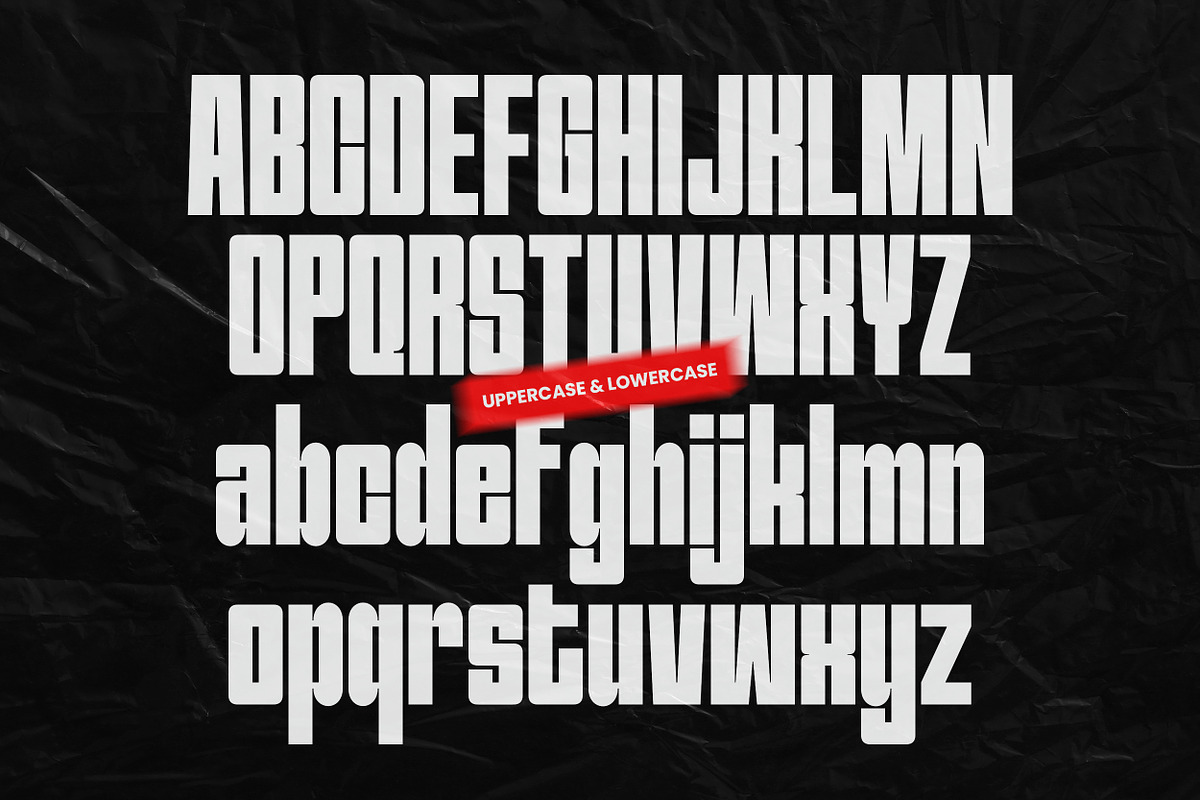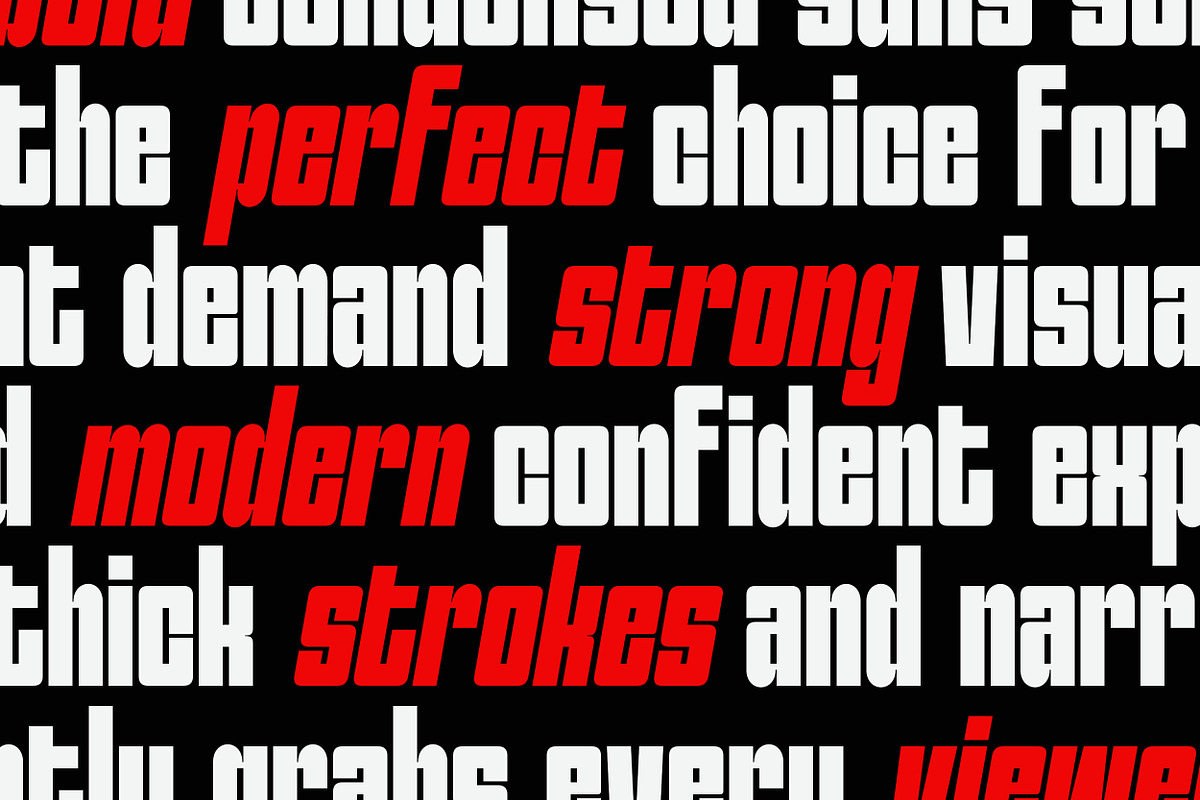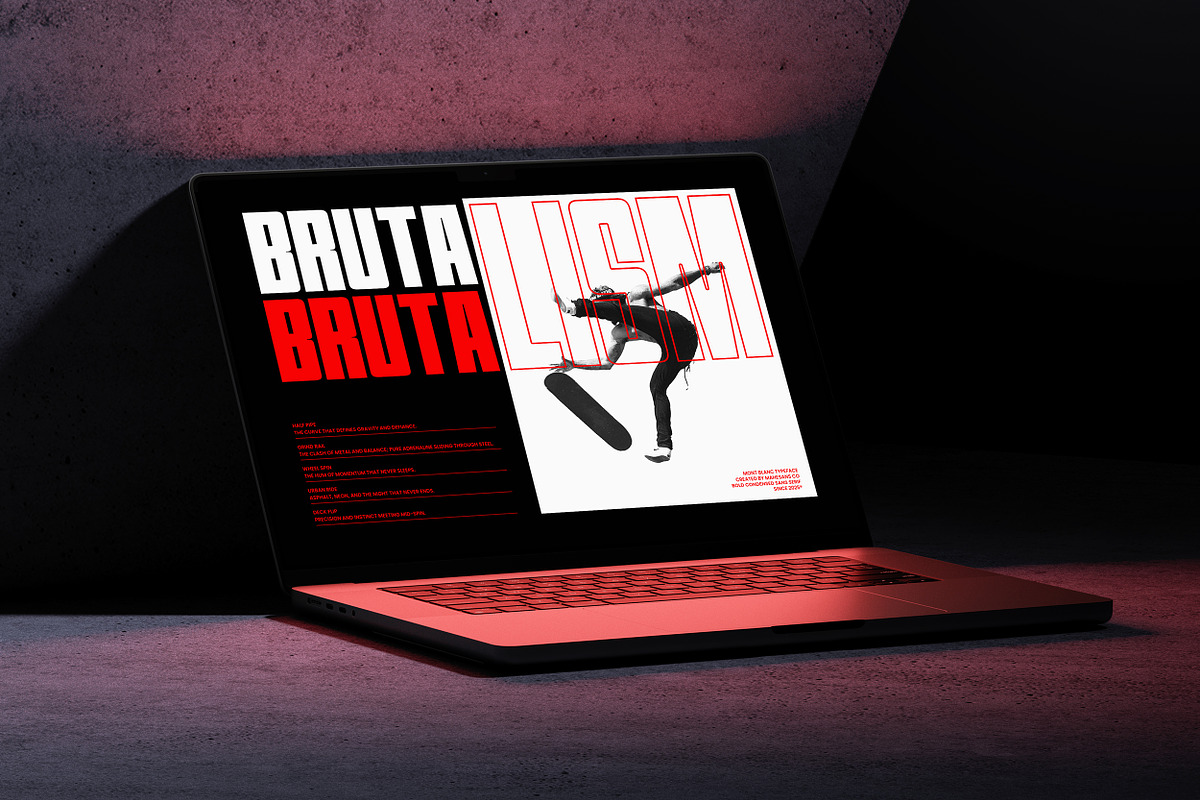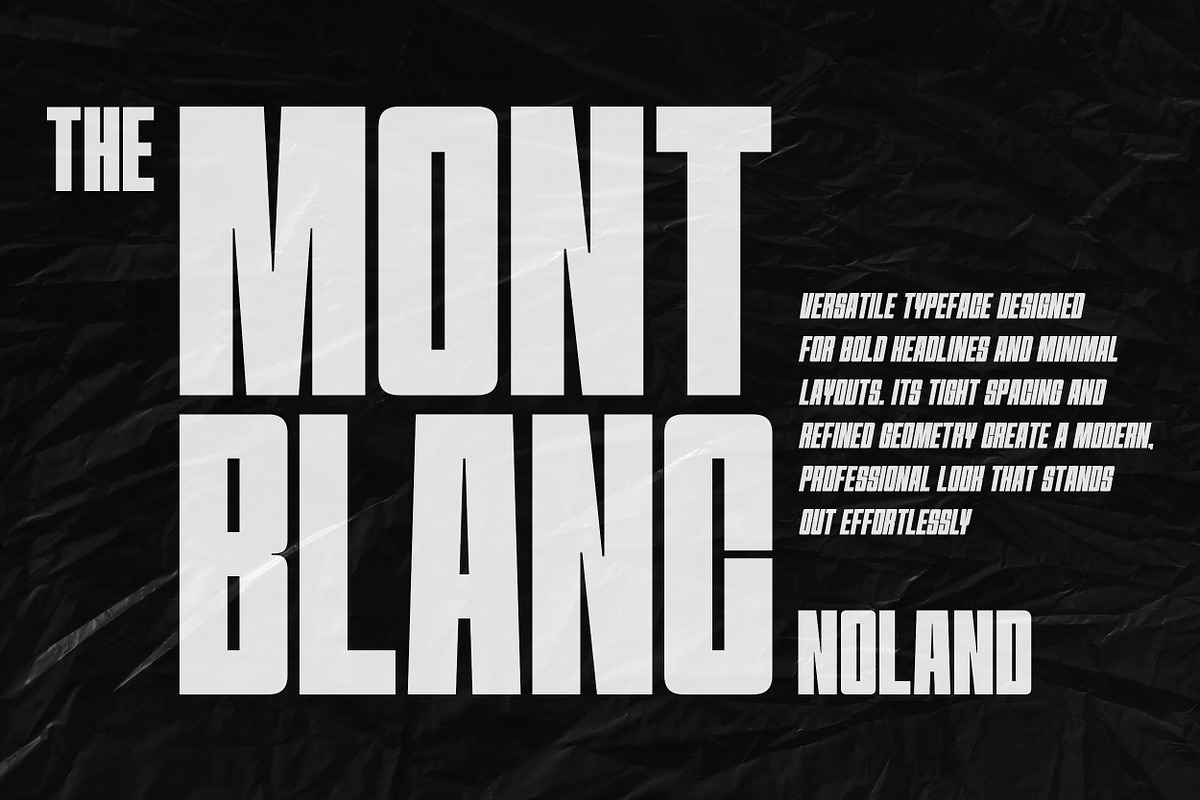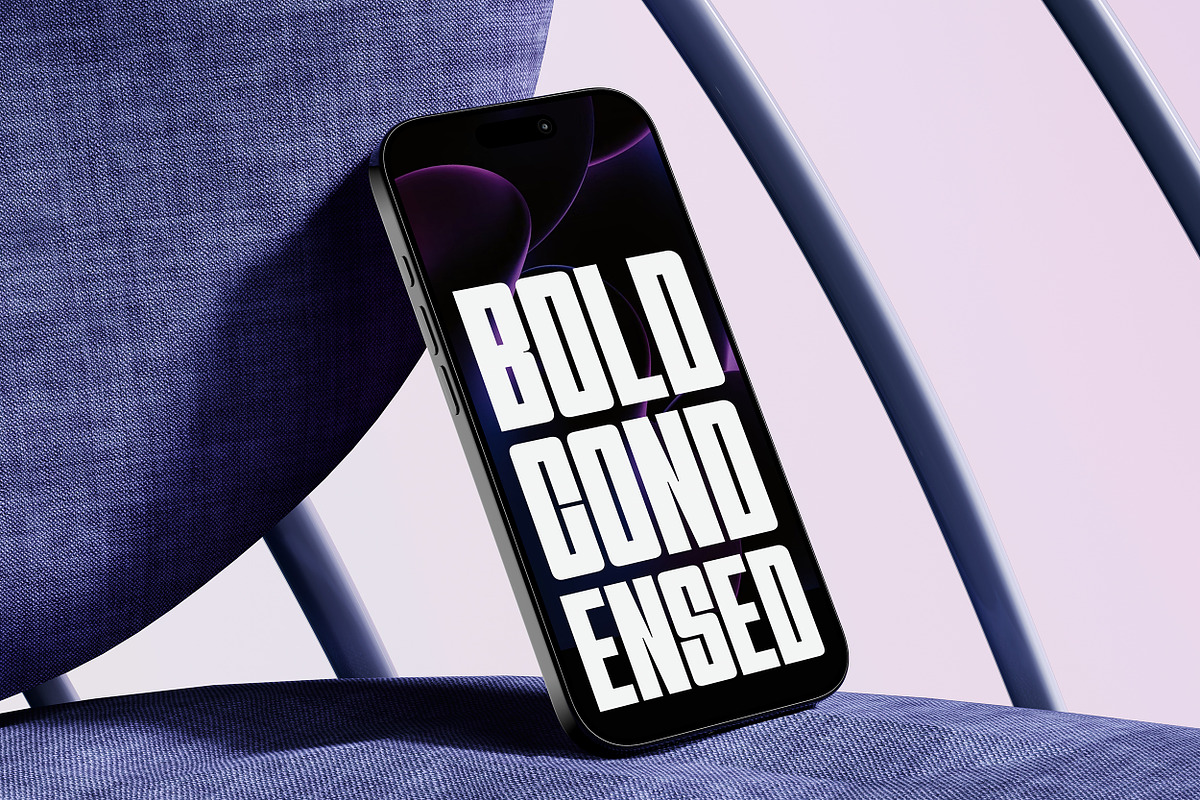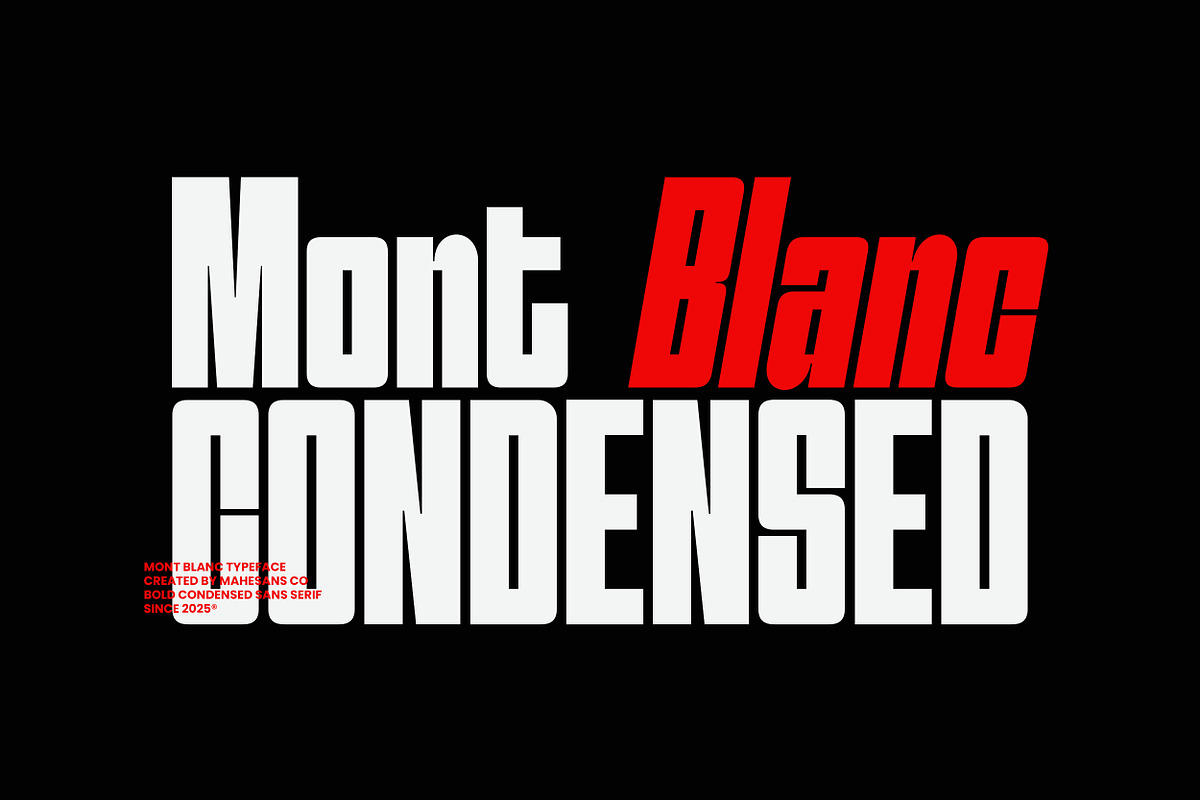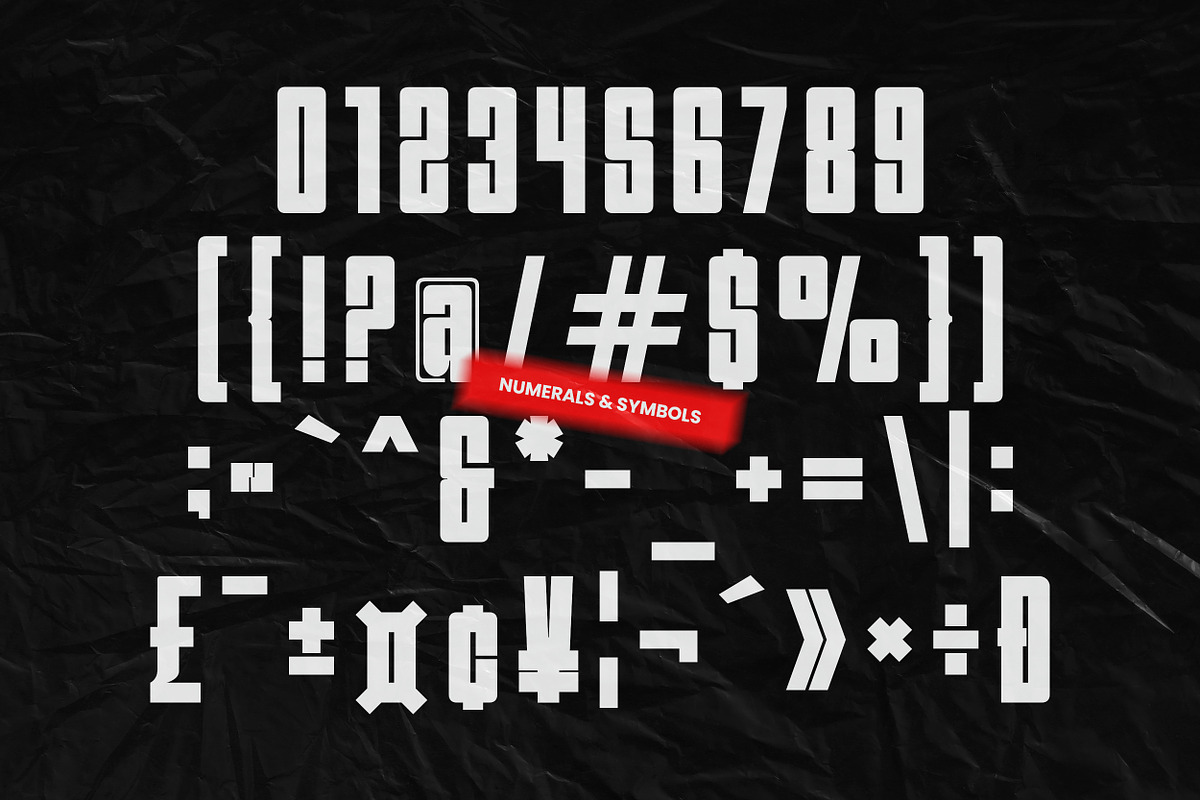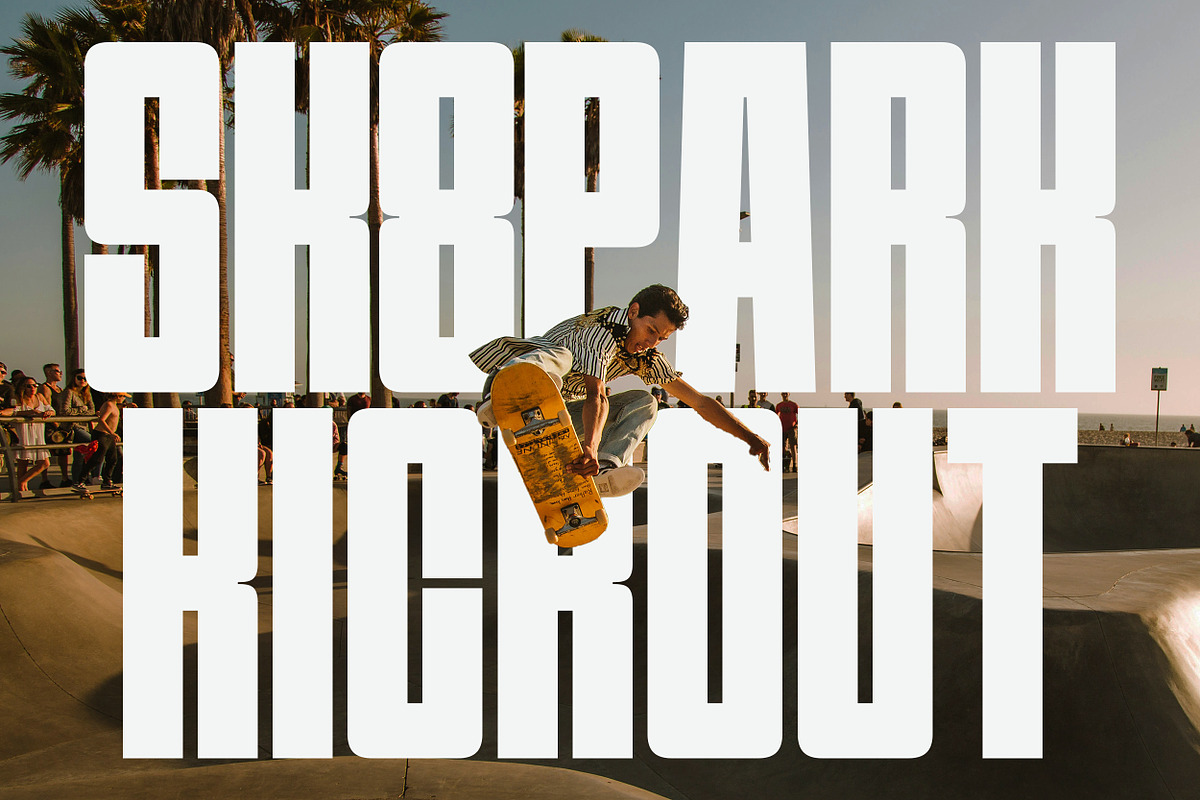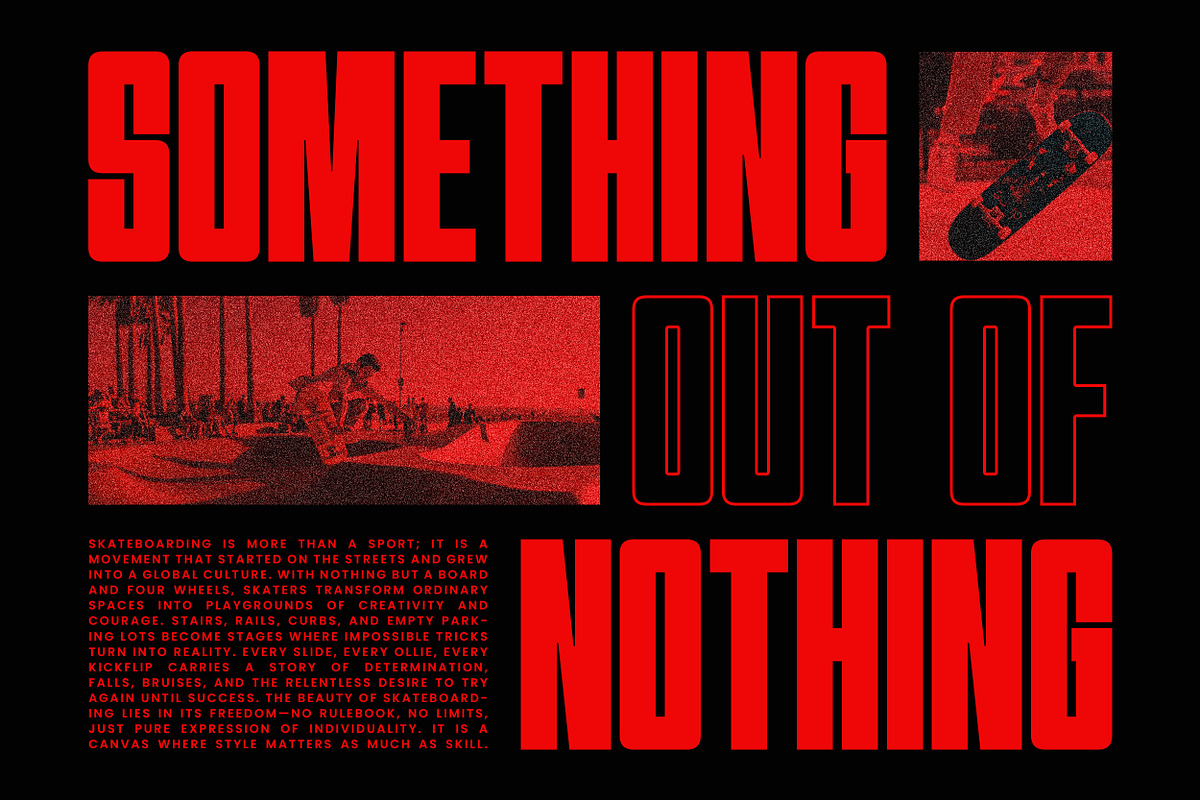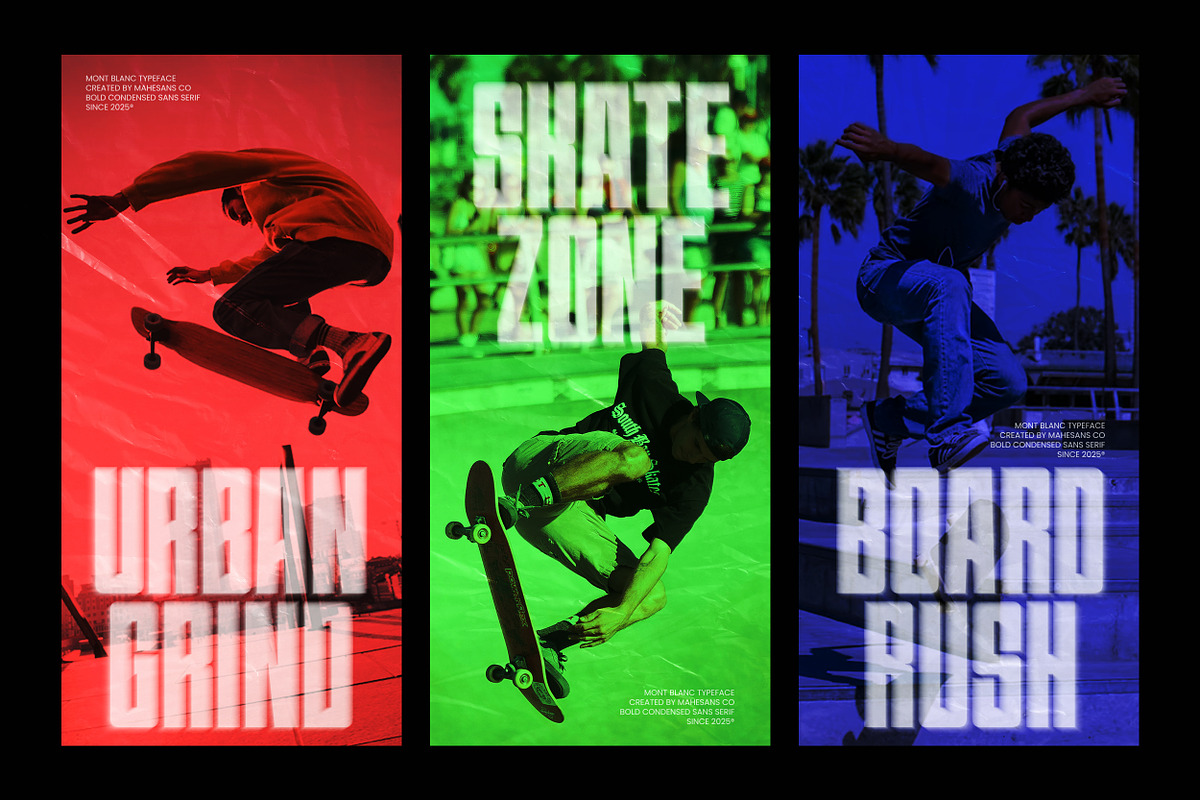
Mont Blanc - Condensed Sans Serif
Mont Blanc — Condensed Sans Serif Typeface
Mont Blanc is a bold condensed sans serif that stands tall with confidence and strength. Designed for impact and clarity, it features thick vertical forms, tight letter spacing, and modern geometric construction — perfect for projects that need to grab attention instantly.
This typeface carries a strong visual rhythm and industrial precision, making it perfect for headlines, posters, logos, packaging, and sports designs. Mont Blanc’s condensed proportions allow more power in less space — giving your text a loud, modern attitude without losing balance or legibility.
- Perfect for logo design, packaging, sports graphics, streetwear, editorial, and digital artwork